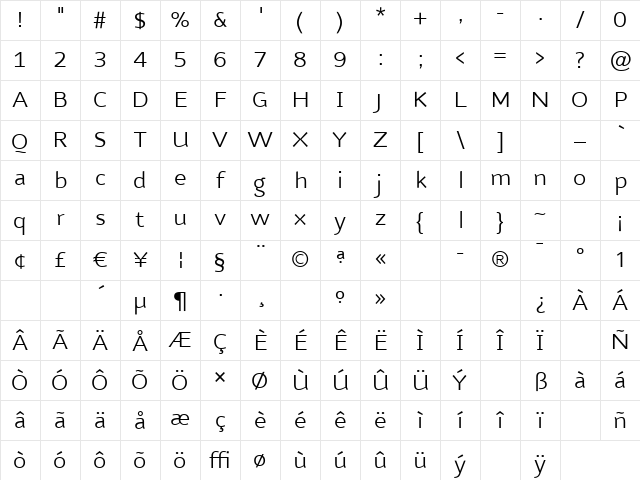
Complete NubianAlt-Light Light glyph index. Displaying only characters natively supported by NubianAlt-Light Light font.
NubianAlt-Light is a composed and adaptable typeface that performs quietly and consistently across a wide range of design contexts. Its slender proportions lend an understated elegance to any composition.
Who designed the NubianAlt-Light Light font?
This font was published by G-Type. Designed and digitized by Nick Cooke. Check the technical specs section for copyright and designer details.